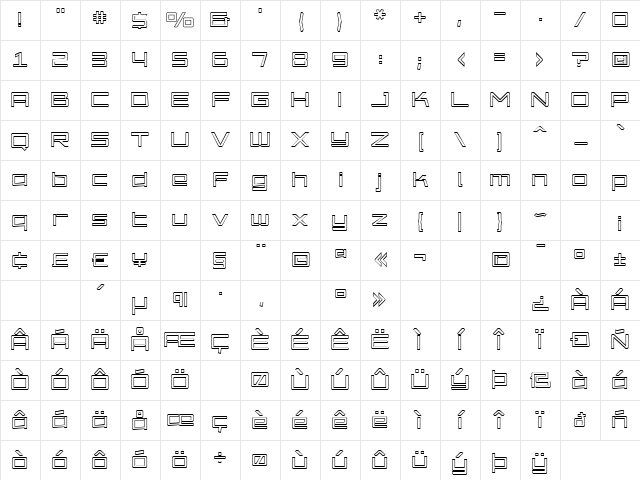
Complete Amp Outline glyph index. Displaying only characters natively supported by Amp Outline font.
Amp is built around its visual character rather than neutral utility - its distinctive forms are designed to make an impression at display sizes.
Font Pairing: Pair with a clean neutral sans-serif for body copy to let Amp's character lead without overwhelming the composition.
Pro Tip: Use Amp exclusively at display sizes - it was designed to be seen, not read at length. Let a neutral companion handle body copy.